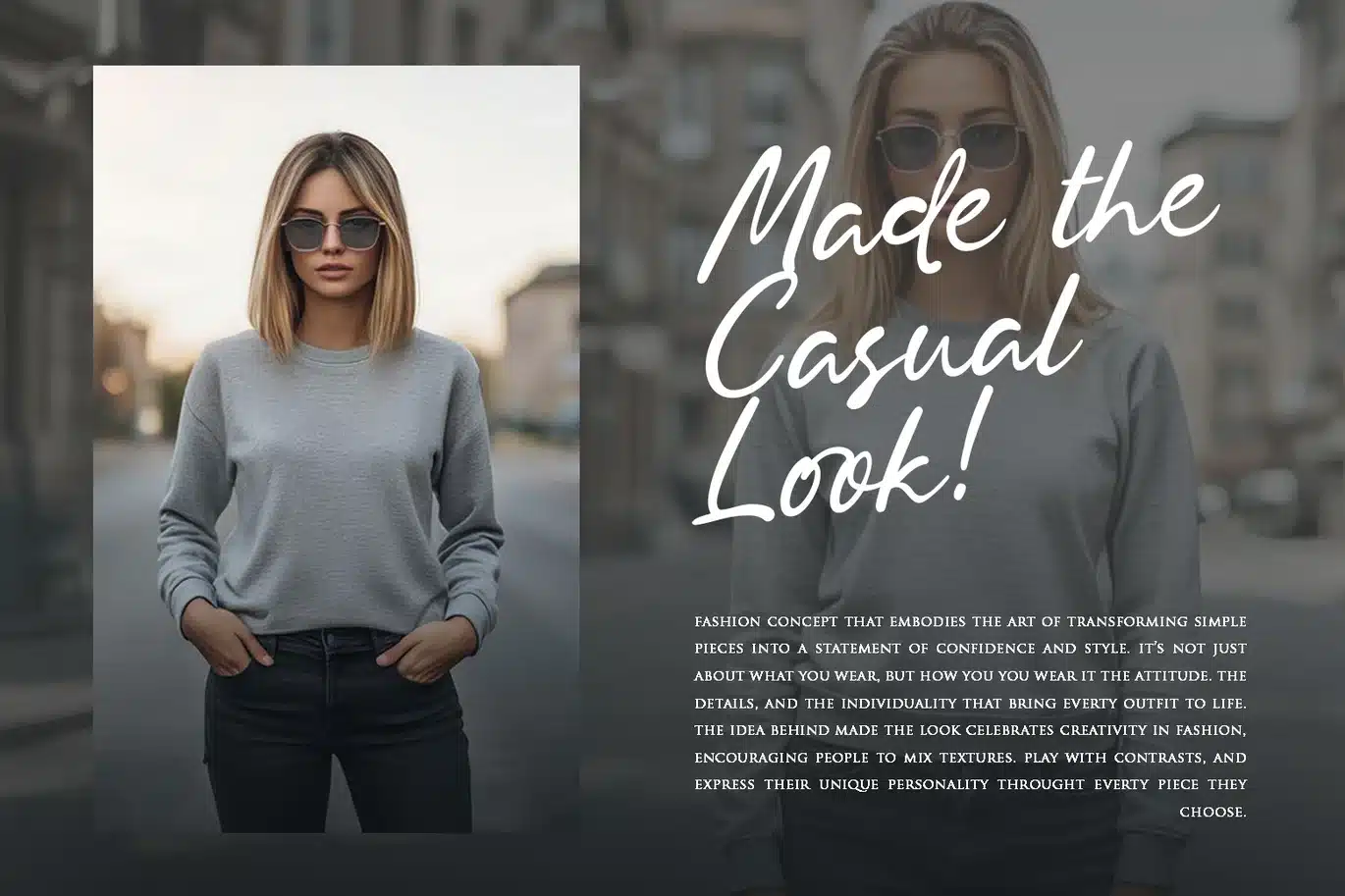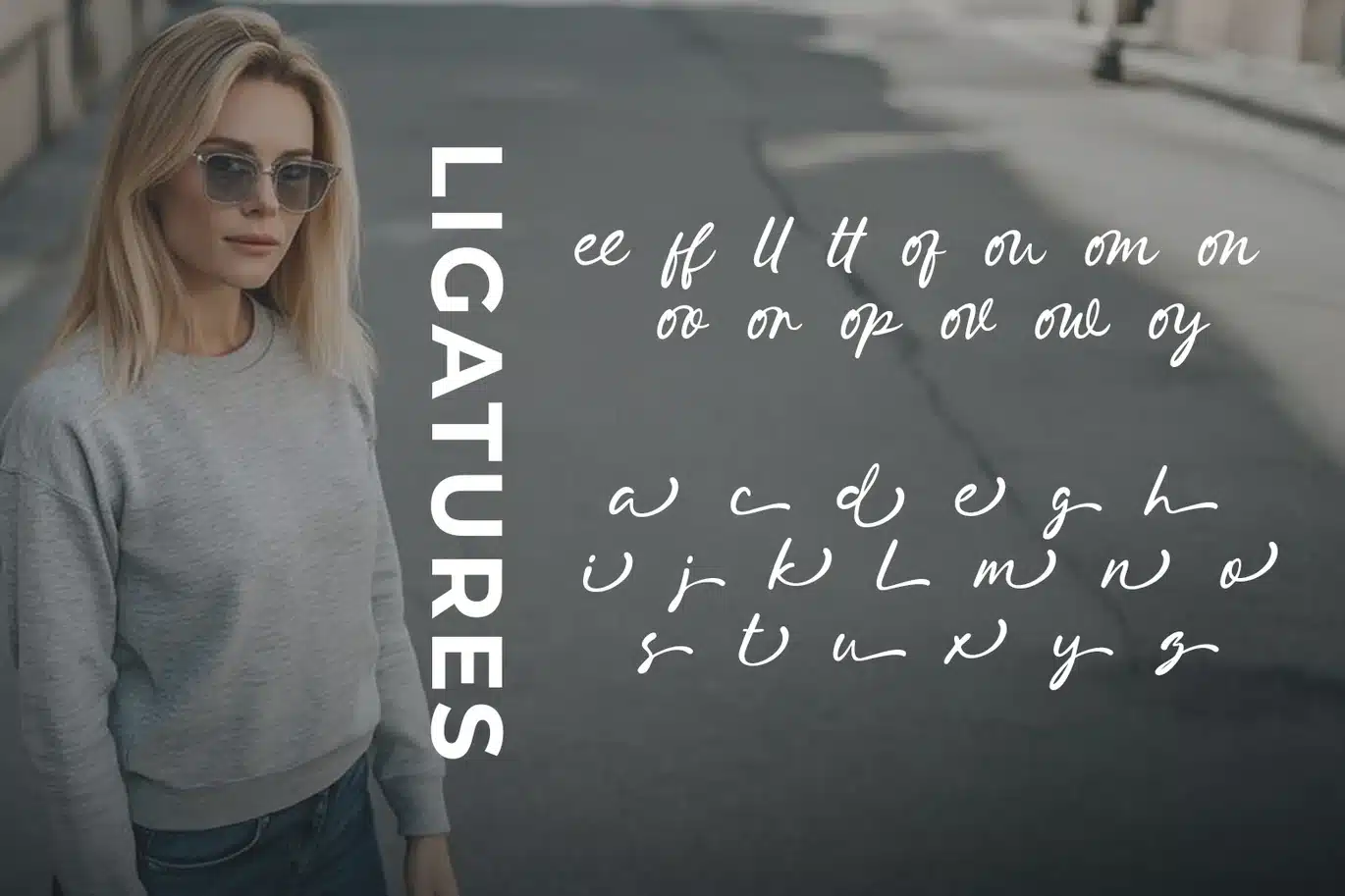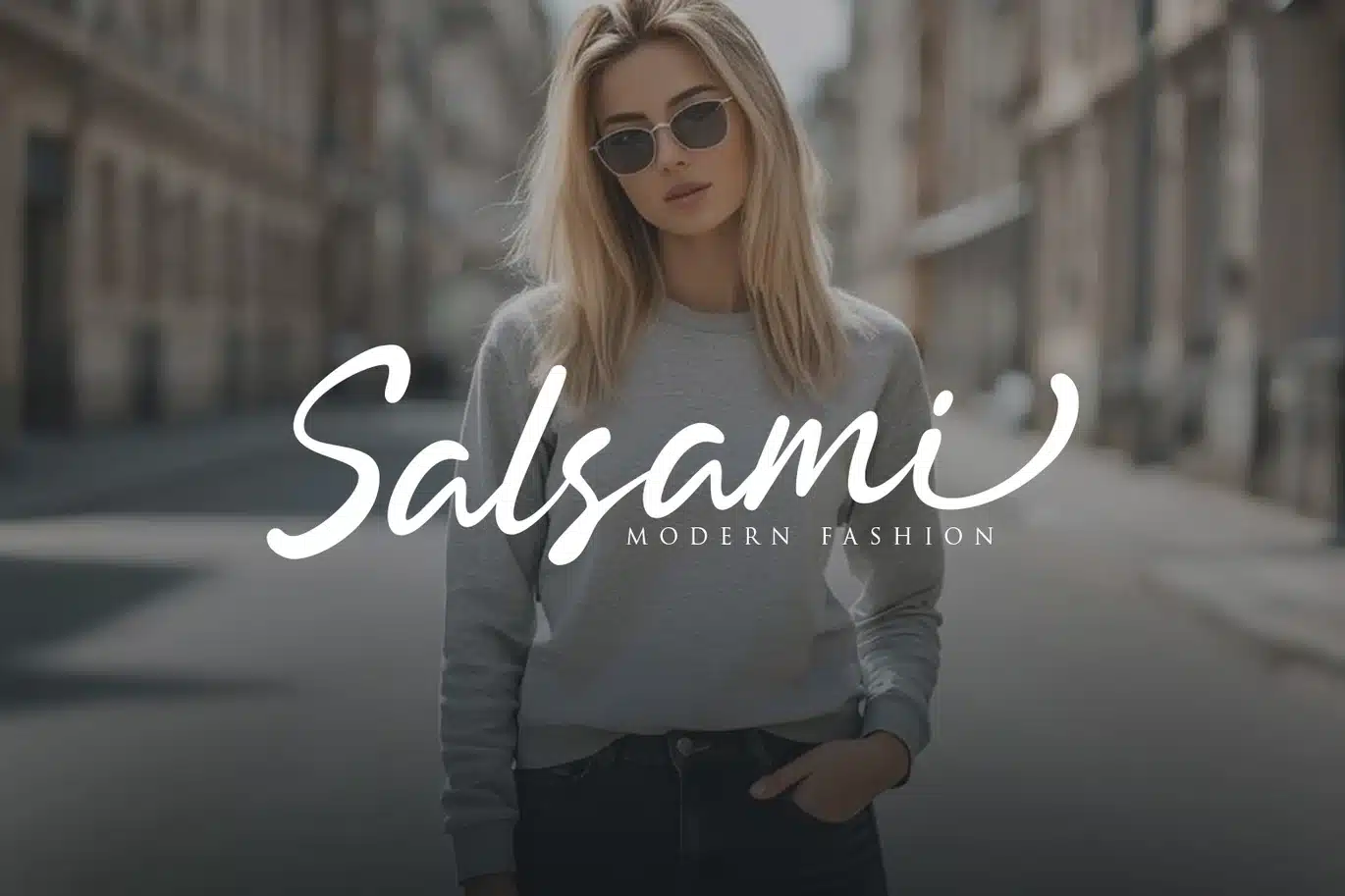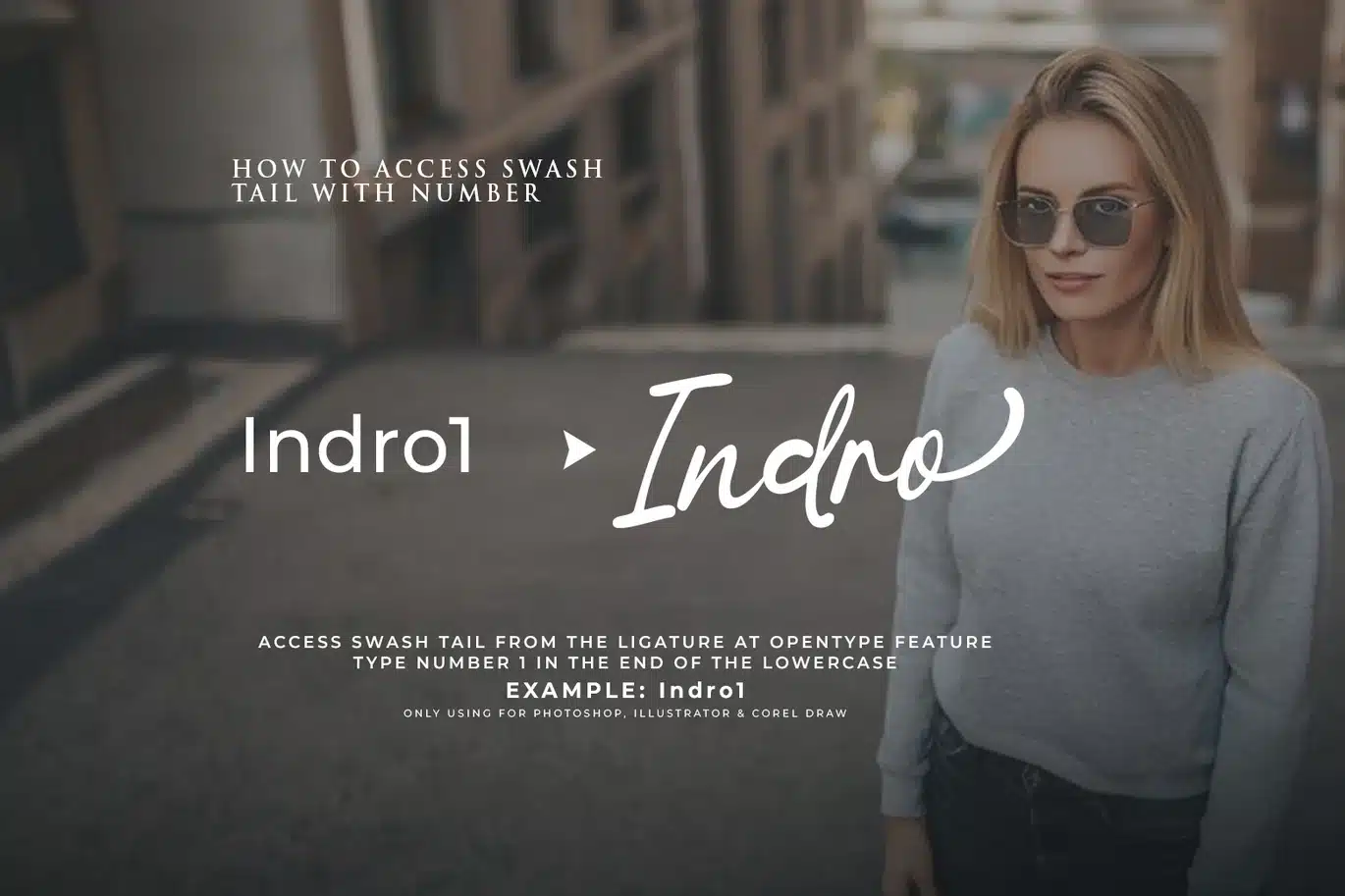
Blesh Forte – a Modern Script Signature Font
Blesh Forte is a modern signature script font perfect for posters, logos, magazines, book covers, banners, and many more! Get this amazing font, and use it to create lovely designs. It can easily be matched to an incredibly large set of projects, so add it to your creative ideas and notice how it makes them stand out!
Blesh Forte font suitable for logo, branding, greeting card, poster and any design that you create.